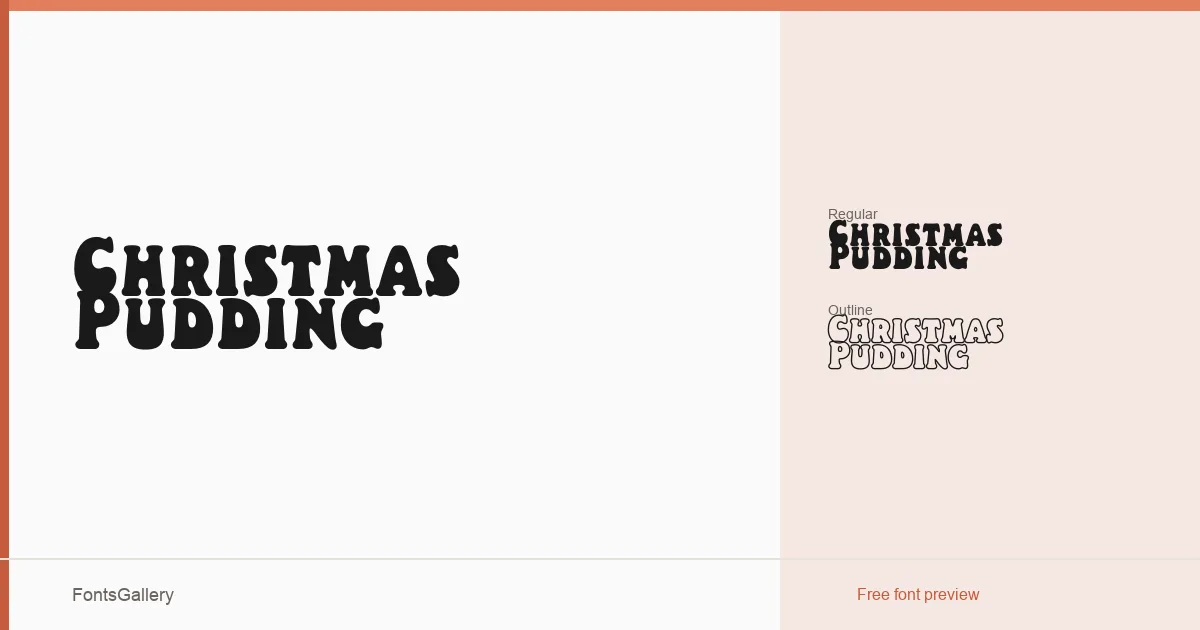
About Christmas Pudding Font
Christmas Pudding is a playful and whimsical display typeface designed by Keith Bates and released under © 2022 K-Type. Bold and full of festive character, it captures a vintage holiday spirit that makes it instantly eye-catching for seasonal creative projects. Its charming personality ensures it stands out wherever a touch of warmth and celebration is needed.
As a display font with a bold and whimsical character, Christmas Pudding features expressive, larger-than-life letterforms that lean into a playful vintage aesthetic. The typeface exudes a retro holiday charm, with thick strokes and characterful details that give each glyph a lively, handcrafted feel. Its bold weight ensures strong visual impact, making every word feel like a celebration in itself.
Christmas Pudding shines in festive posters, seasonal packaging, greeting cards, social media graphics, and T-shirt designs where a bold, joyful statement is needed. Its display nature makes it ideal as a headline or accent typeface rather than for body text. It pairs beautifully with the clean neutrality of Helvetica or the complementary style of Aresink to create balanced and visually compelling layouts.